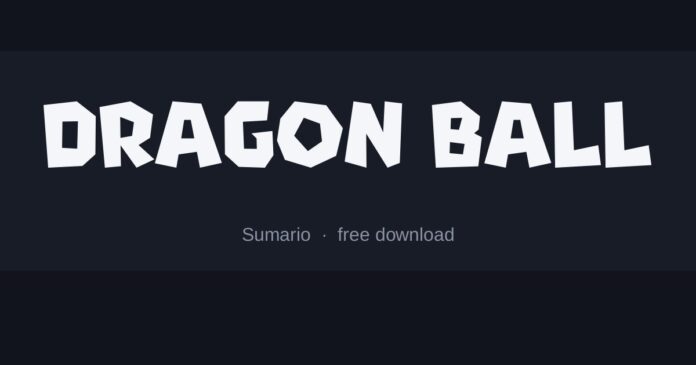
What font is the Dragon Ball logo?
The Latin wordmark is custom: heavy capitals with angled cuts, usually curved along an arc and finished with a thick outline and a drop shadow.
Different series entries restyle the colours and the outline but keep the same heavy angular skeleton underneath.
- Sumario is heavy with angled terminals, the closest to the wordmark’s build.
- Stormfaze is sharper and more aggressive, suited to the action-title treatments.
- Superglue is rounder and blockier, useful when the angles read as too harsh.
Where the style comes from
Anime title logos are usually drawn rather than typeset, and built to work in two writing systems at once — the Latin wordmark has to sit beside Japanese characters without either overpowering the other.
That balance pushes them toward heavy, simple shapes with strong outlines, which survive both the arc curve and the small sizes used on packaging.
Setting it well
- Curve the word along a gentle arc rather than setting it flat
- Add a thick outline and a hard offset shadow — both are part of the look, not extras
- Orange fill with a dark red edge is the association most people recognise
Is this the exact font used for Dragon Ball?
Not exactly. The original lettering was custom drawn or is not publicly licensed, so the fonts here are close recreations. Sumario is the nearest match we have found.